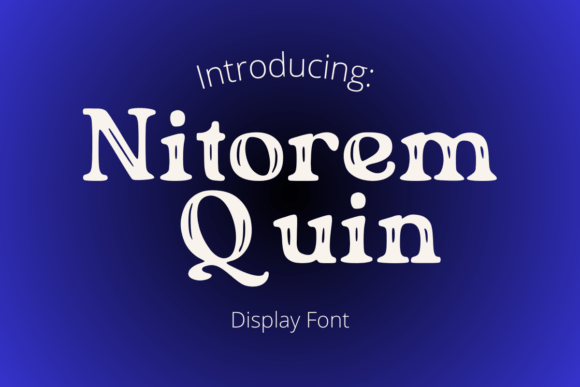
Nitorem Quin: A Retro Display Font for Distinctive Web Identity
As a UI designer who ships landing pages, SaaS dashboards, and boutique e-commerce sites, I reach for Nitorem Quin when a project needs instant personality—without sacrificing clarity or intention. It’s not just another vintage-inspired display font. Nitorem Quin balances nostalgic texture with digital legibility, making it unusually effective in real web contexts where tone, hierarchy, and conversion matter.
Visually, Nitorem Quin channels mid-century signage and analog print: slightly condensed letterforms, subtle stroke contrast, softened terminals, and gentle irregularities that feel hand-drawn but never chaotic. Its rhythm is confident—not overly decorative, not sterile. That nuance is why it works so well above the fold: on hero banners, product headlines, course titles, and brand logotypes. It doesn’t shout; it invites attention with warmth and quiet authority.
In practice, Nitorem Quin shines most as a hero and heading typeface. Use it at 48px+ on light backgrounds for maximum impact—or scale down to 32px for section headers in portfolio layouts. It holds up beautifully over high-contrast image overlays, especially when paired with a subtle text shadow or background tint. On dark mode interfaces, I often apply a soft white or warm off-white (#f8f4e9) to preserve its retro warmth without glare.
It’s not built for body copy—and shouldn’t be. Nitorem Quin is a display font, designed for short bursts of emphasis: “Limited Edition Launch,” “Summer Workshop Series,” “Est. 1972.” That restraint is intentional. When used selectively, it strengthens visual hierarchy by creating clear separation between voice-driven headlines and functional supporting text. Users scan faster because the font signals *this is the idea—not the instruction*.
Readability on mobile is excellent—but only when applied intentionally. At 24–28px on iOS and Android, Nitorem Quin remains highly scannable in headings and CTA buttons (e.g., “Join the Waitlist”). Avoid using it below 20px or in dense navigation menus. For buttons, always test contrast ratios: it meets WCAG AA on light and dark backgrounds at 24px+, especially with generous letter-spacing (0.05em–0.08em).
Font pairing is where Nitorem Quin reveals its versatility. My go-to combination is Nitorem Quin + Inter or Manrope—a neutral, highly readable sans serif with strong hinting and variable weight support. This pairing delivers editorial polish for blogs, clarity for dashboards, and trust for B2B landing pages. For more expressive brands—think indie publishers or artisanal goods—I’ll pair it with a low-contrast serif like IBM Plex Serif or Charter, letting Nitorem Quin anchor the voice while the serif handles narrative depth.
What sets Nitorem Quin apart from other retro display fonts is its intentional restraint. It avoids caricature—no exaggerated serifs, no forced distressing, no arbitrary swashes. That makes it adaptable across industries: equally at home on a sustainable skincare brand’s homepage, a jazz festival’s digital program, or a retro-gaming app’s onboarding flow. It communicates heritage without sounding dated, creativity without seeming unserious.
Use it to signal craft. Use it to honor tradition while building something new. Use it where your audience needs to feel—not just read—the story behind your brand. In an ecosystem saturated with algorithmically generated type, Nitorem Quin offers something rare: authenticity with precision, nostalgia with purpose.